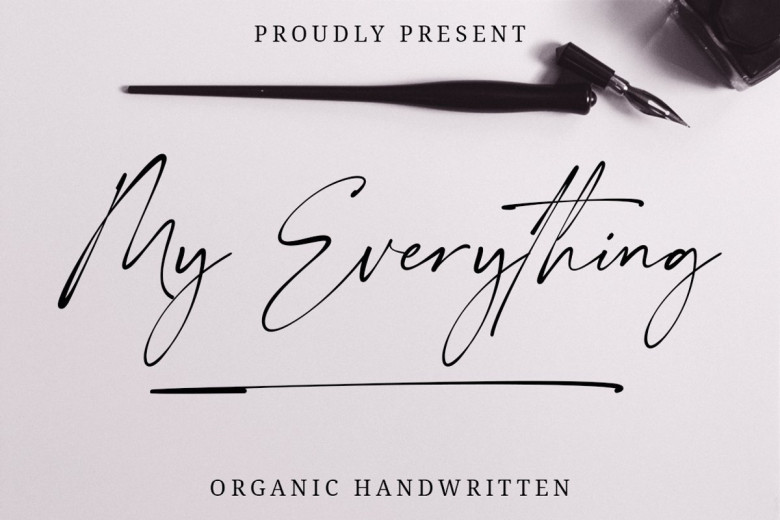
My Everything Organic Handwritten Font
Introducing the new My Everything organic script font – A fashionable, luxury and super-chilled new handwriting font script. This font is perfect for branding, logos, wedding stationery, cards, gift designs, photography, watermark, product packaging and handwritten quotes.
You won’t get cute, whimsical, funny logos with this font. Only high-end, upscale, sophisticated Branding Design. This font is free for PERSONAL USE. Link to purchase full version and commercial license: HERE